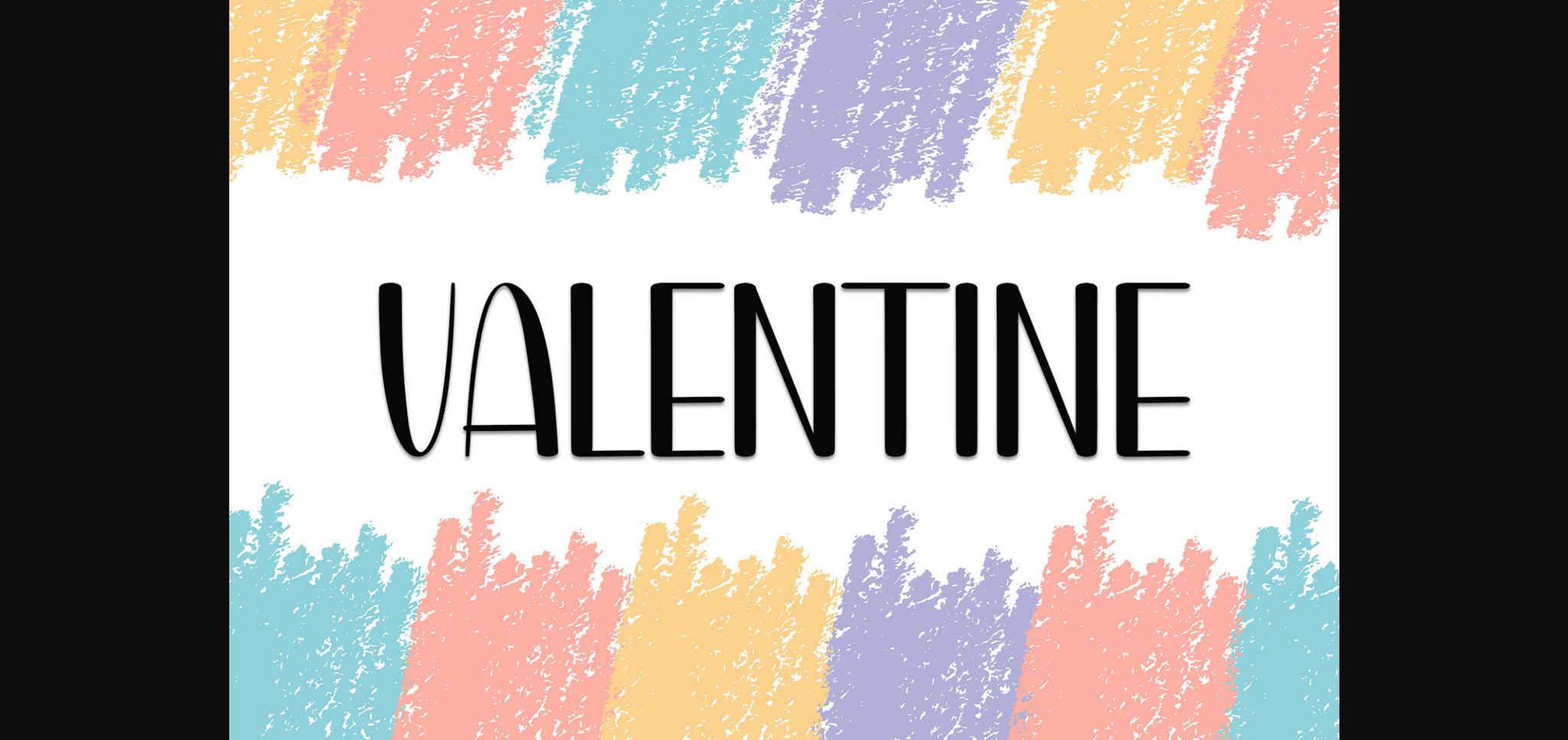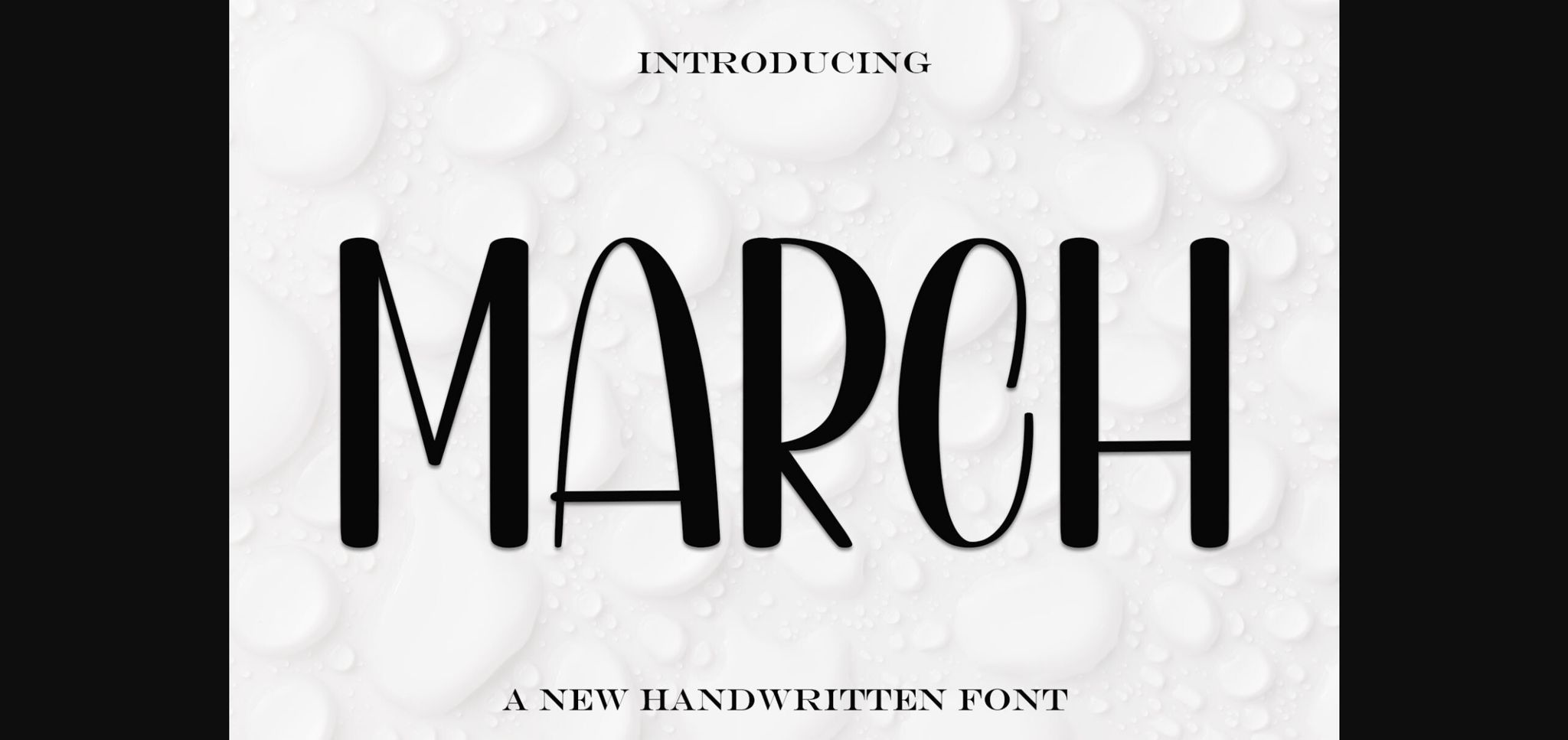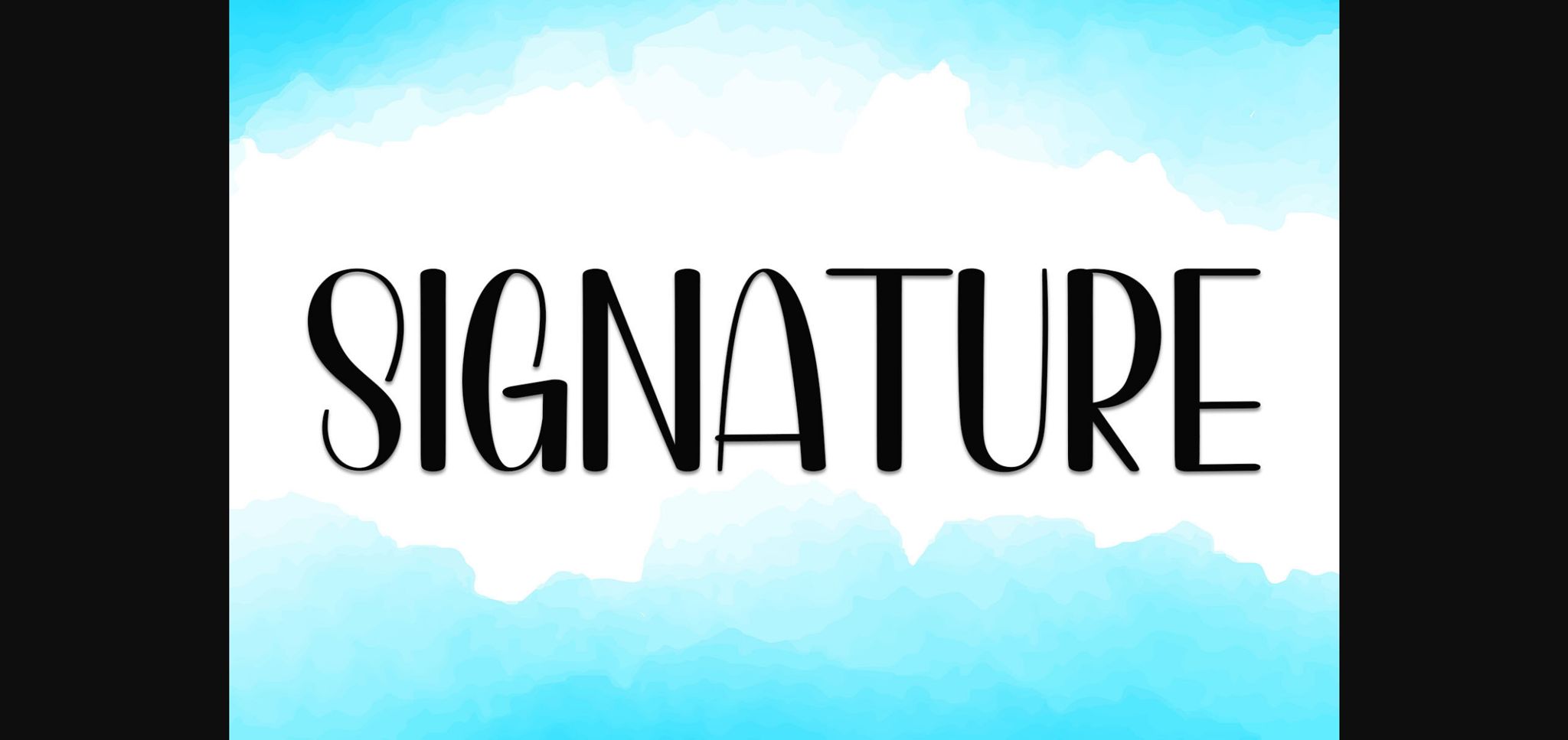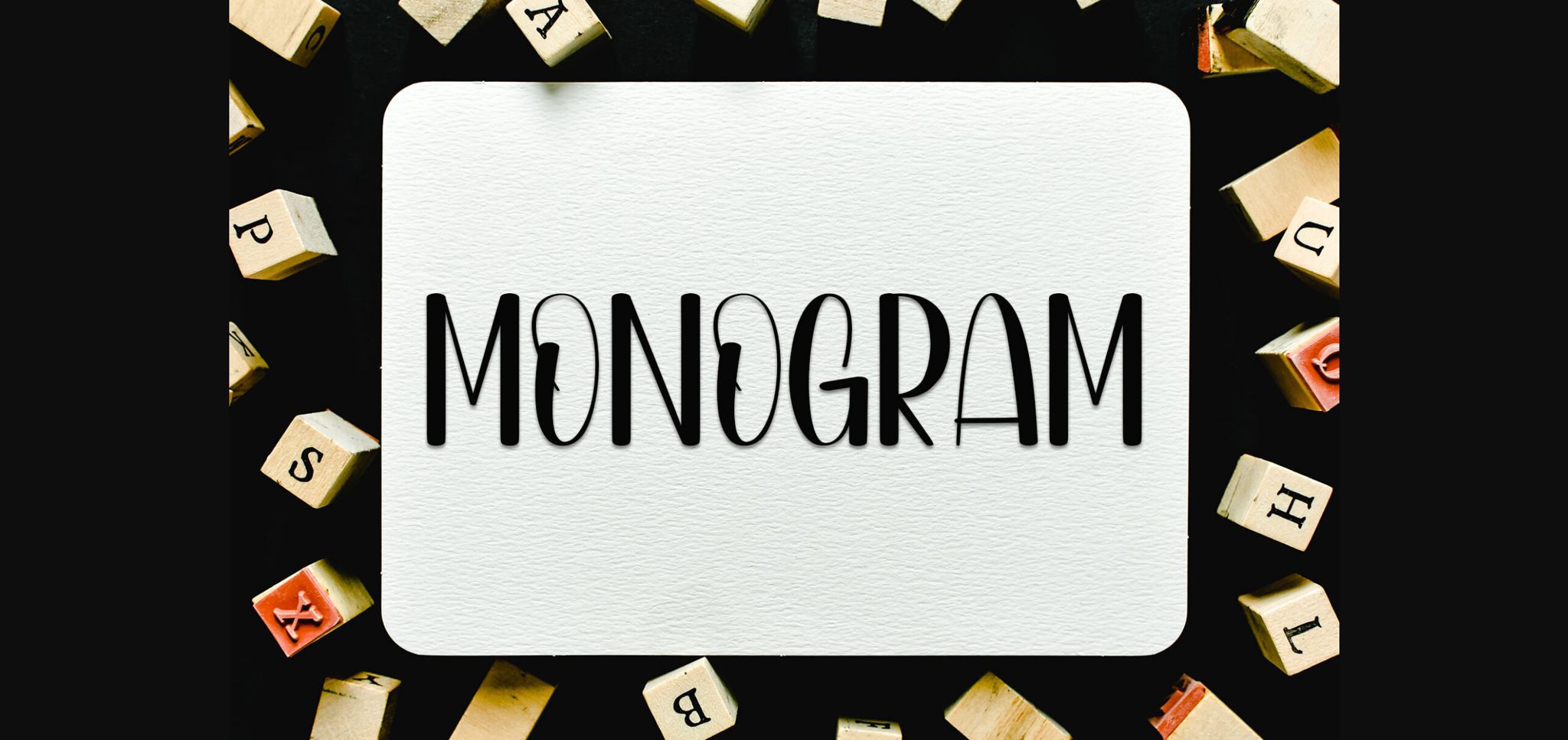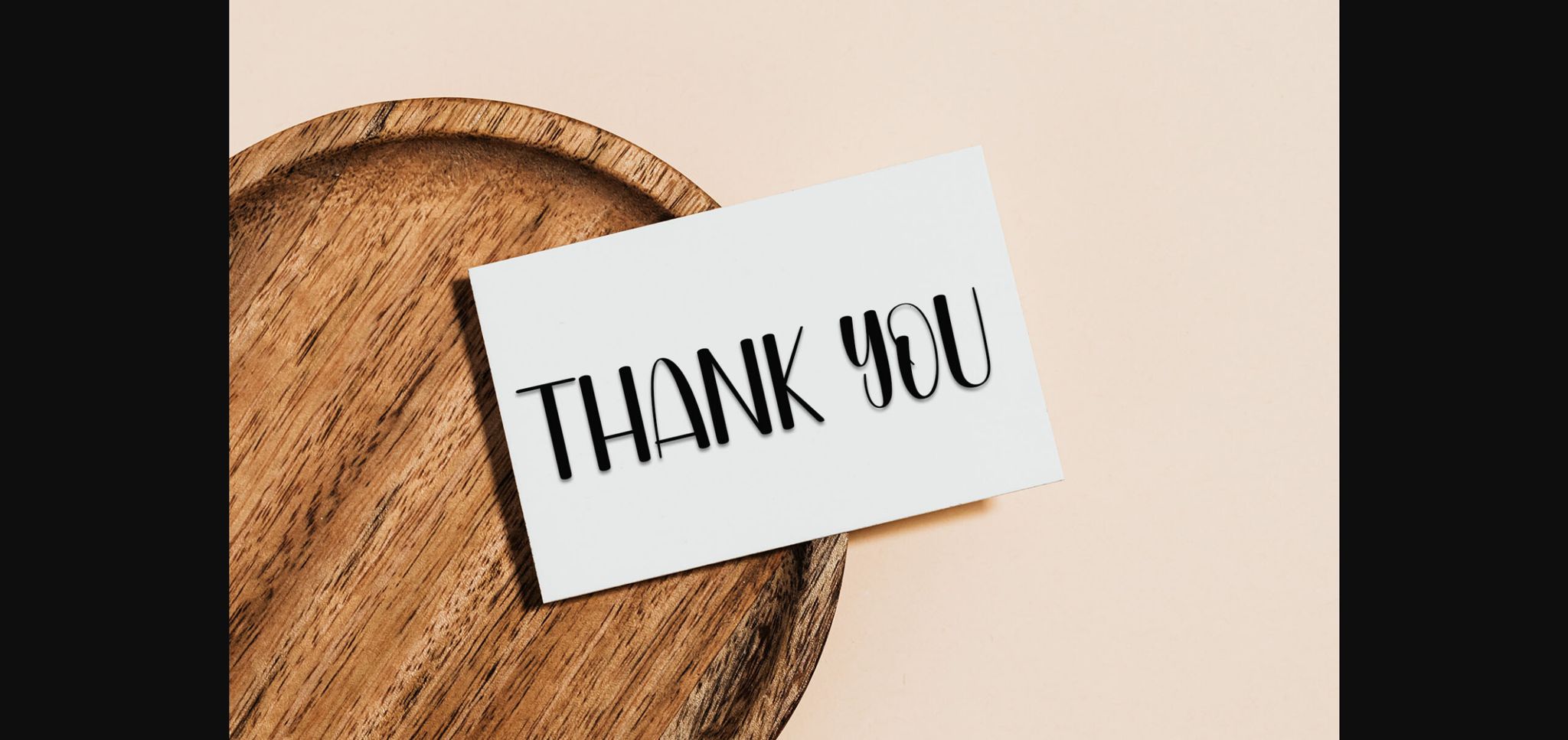
About March Font
March is a neat and beautiful sans-serif font described by an elegant touch, perfect for your favorite projects.
Fall in love with its incredibly distinct and timeless style, and use it to create spectacular designs!